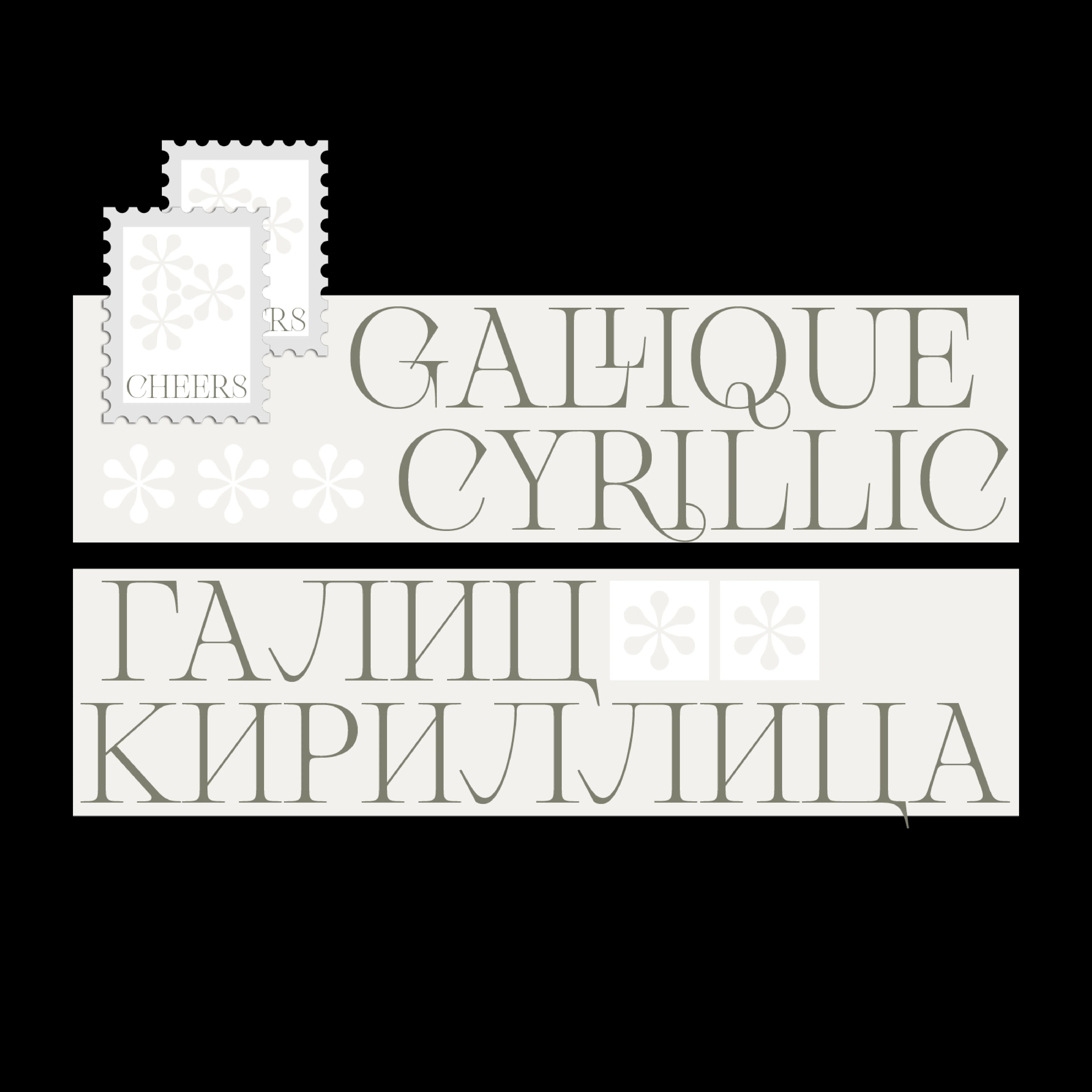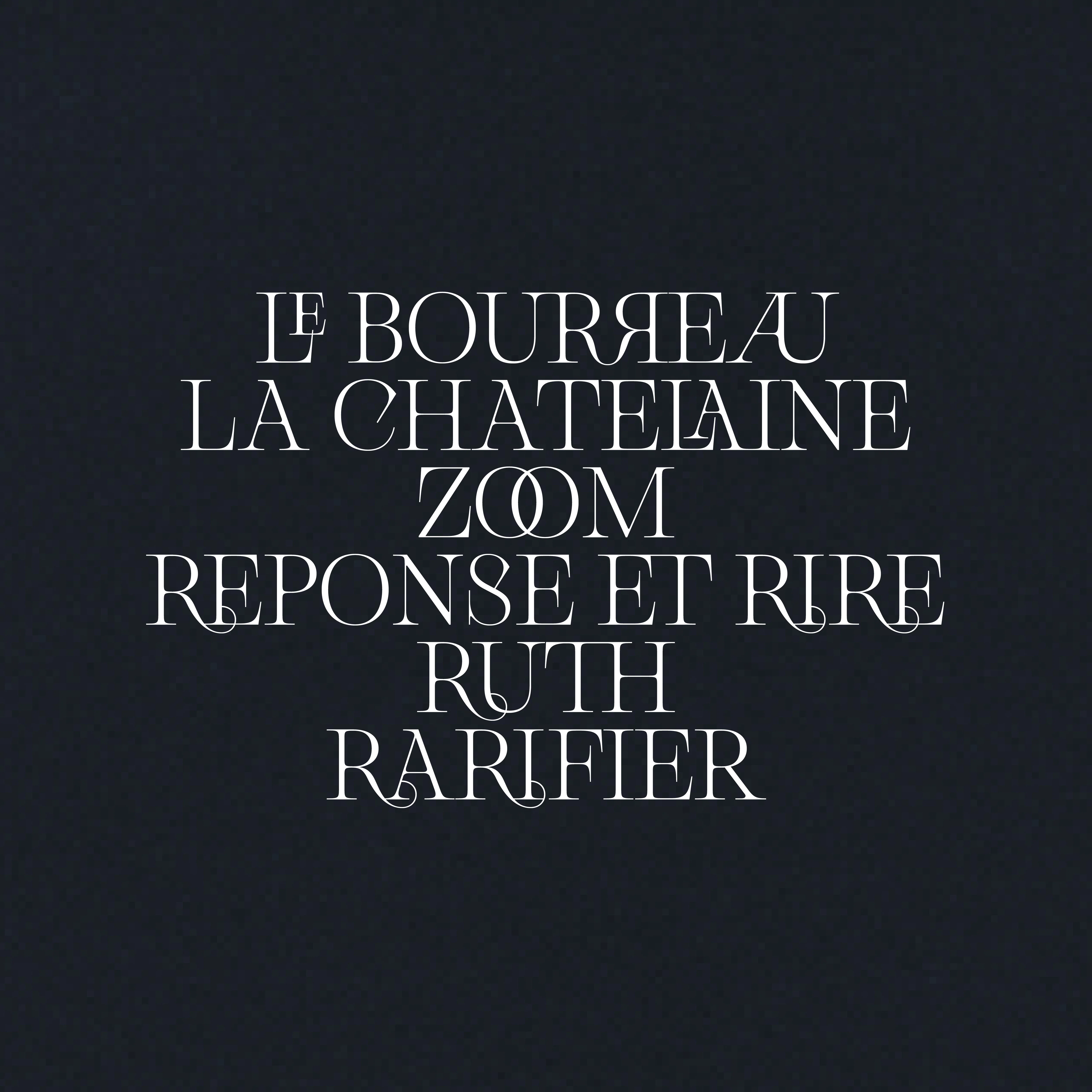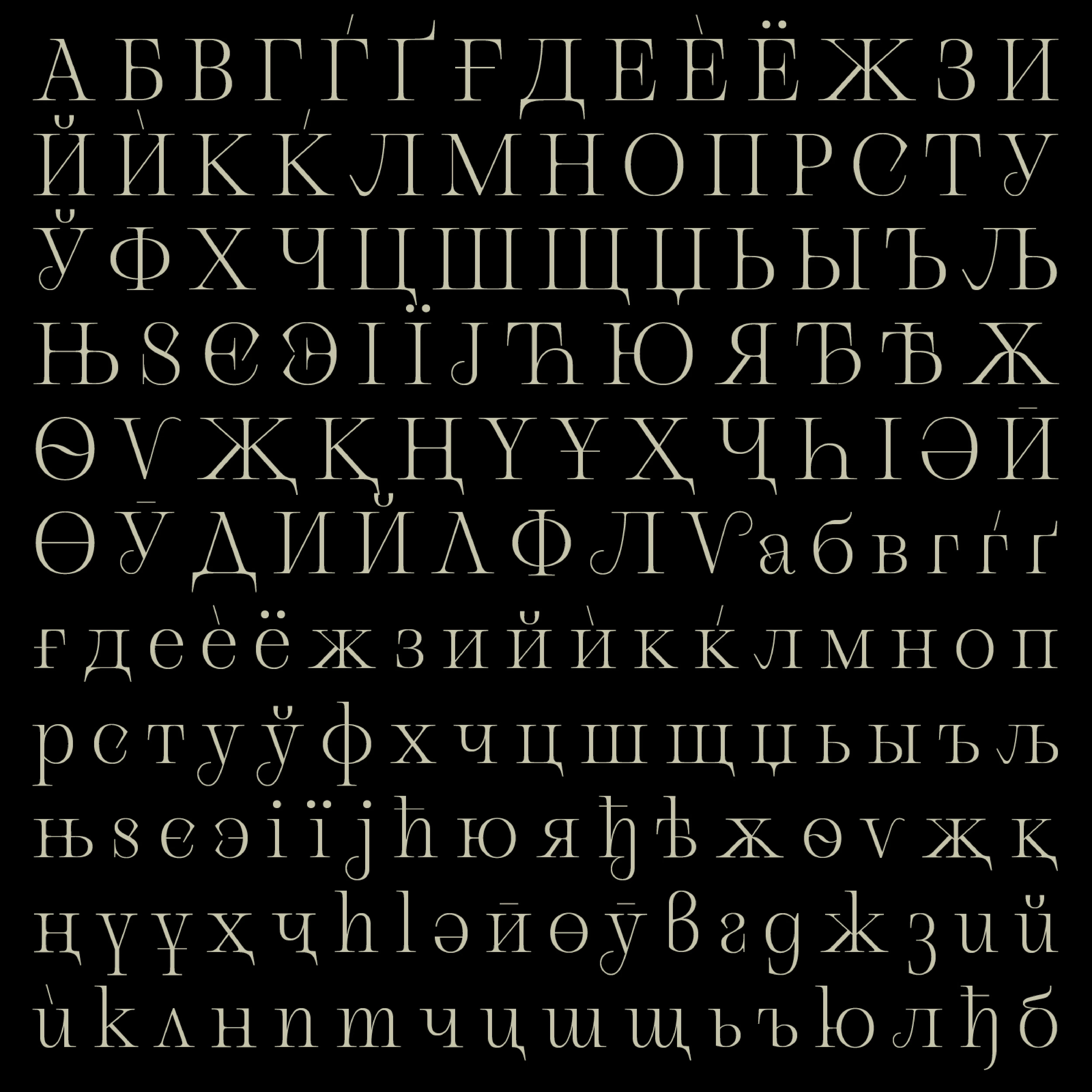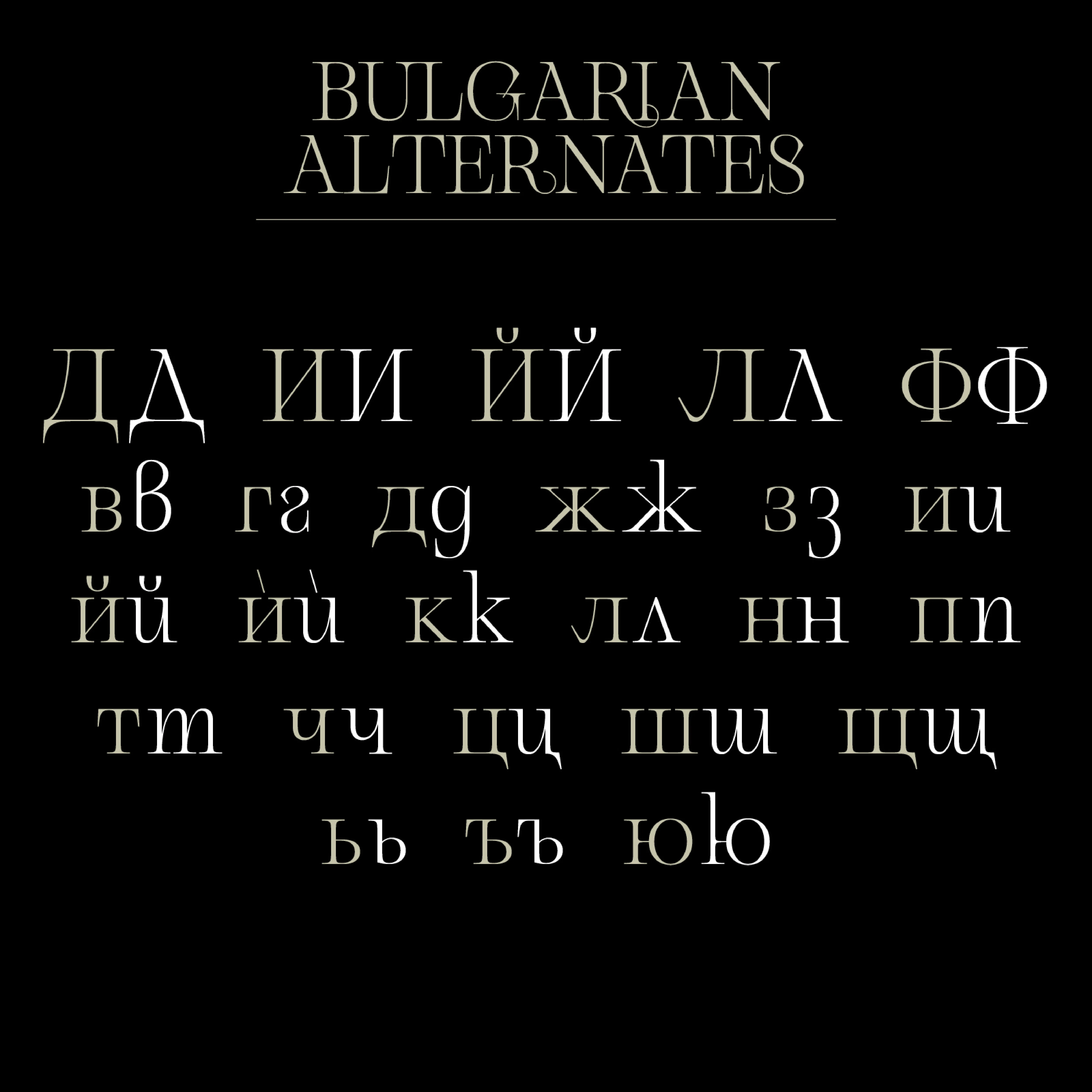
Gallique
Gallique derives its name from Rosa Gallica, the oldest of garden roses. Inspired by the duality of soft petals and prickling thorns, this serif typeface presents an expressive and experimental interpretation of contemporary design.
Designed to enchant ligature enthusiasts, Gallique intricately intertwines its forms to showcase hypnotic curves and intricate connections. Ideal for creating stunning displays in impactful editorial layouts and projects that celebrate feminine strength and elegance.
In 2021, a Cyrillic version of Gallique was introduced to cater to a broader audience, including necessary alternates for Bulgarian. Maintaining the essence of the original set, the Cyrillic version features delicate and fragile shapes, ideal for posters, books, and websites. Whether used in Latin or Cyrillic script, Gallique offers a blend of beauty and versatility, making it a compelling choice for designers seeking to evoke elegance and sophistication in their projects.